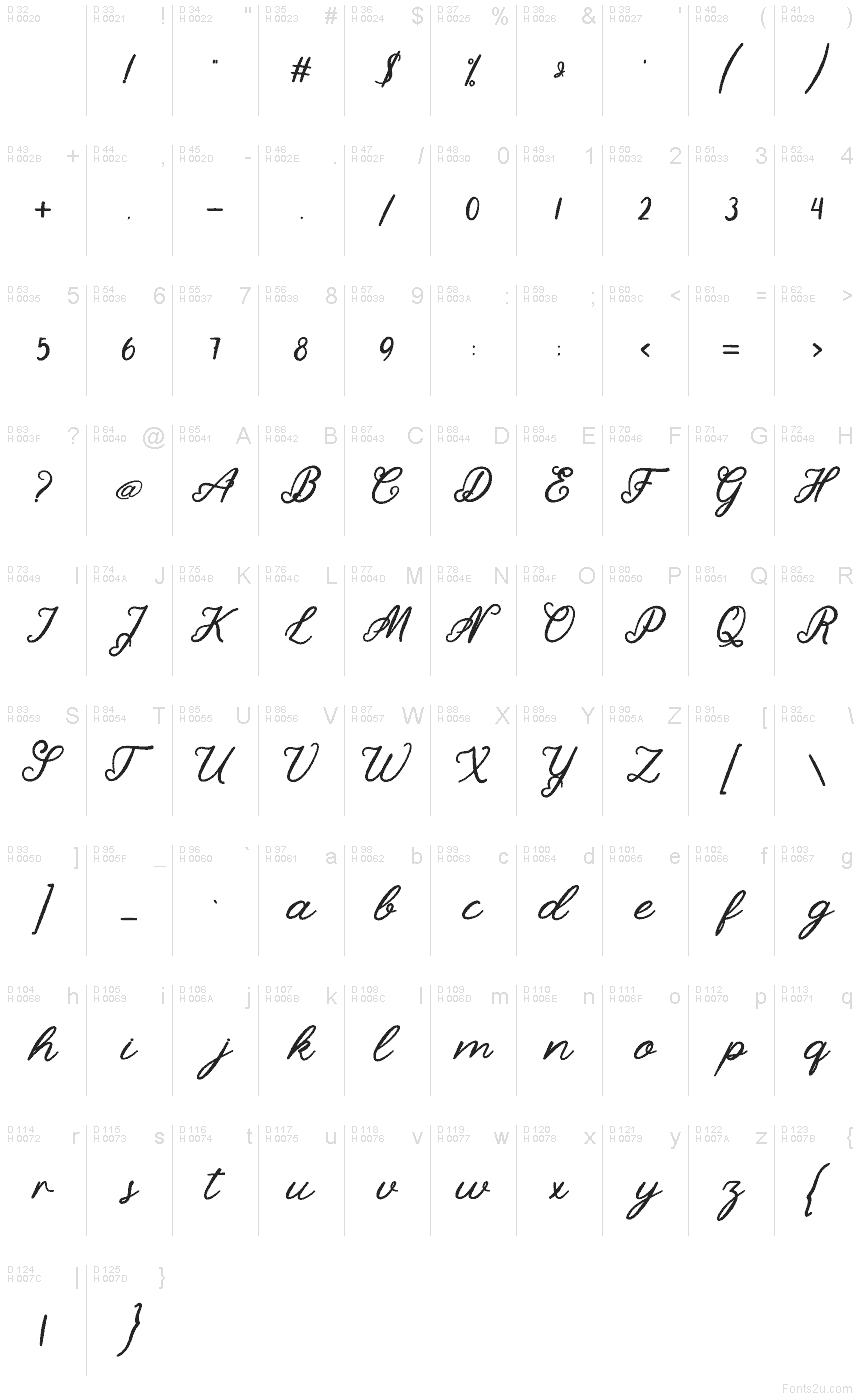
Sellyha
Sellyha font by Skiiller Studio is a free regular handwritten script font. It solves a classic design headache: getting real cursive warmth without losing clarity. Smooth, inky strokes connect with an easy rightward slant, while gentle loops and tidy spacing keep words readable at a glance. There’s a spring to the lines—elegant but not fussy—making it feel personal, polished, and remarkably consistent.
Using Sellyha, headlines and names carry a soft, signature-like presence that shines on wedding suites, boutique logos, packaging labels, social posts, event posters, and stationery. This free font works beautifully at medium-to-large sizes; give it a touch of extra tracking for airy elegance. Pair with a crisp geometric sans to anchor its flowing rhythm.